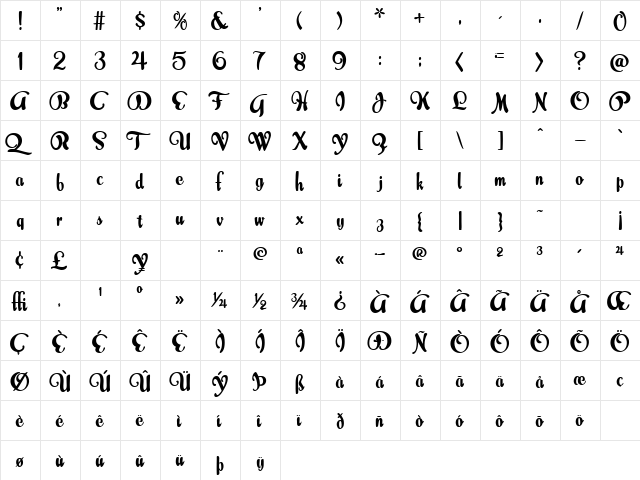
ScarletRibbons Regular
Design Context for ScarletRibbons Typeface
ScarletRibbons is a composed and adaptable typeface that performs quietly and consistently across a wide range of design contexts.
Pro Tip: Use ScarletRibbons in both headline and body roles to test its range before committing to a single application.